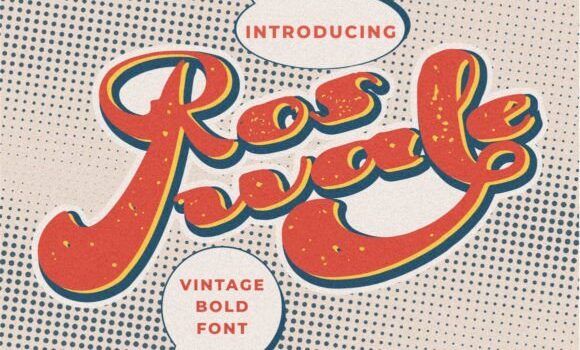
roswale
Roswale Font – Free Download Introduction to Roswale Font Roswale is a bold, vintage-style script display font. 📸 Preview Gallery 6 images 📌 Product Name Roswale Font 👤 Author putracetol 📂 Category Explore ⬇️ Download Roswale Font FREE Free Download